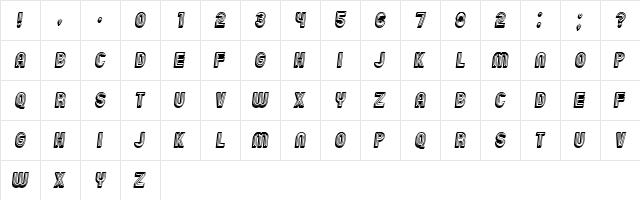
Chicago Bright Neon 3D Italic Font Preview
Chicago Bright Neon 3D Italic
Chicago Bright Neon 3D Italic Font Details
Design Context for Chicago Bright Neon 3D Typeface
Chicago Bright Neon 3D has a distinctly futuristic character, with geometric precision and clean angles that feel at home in technology, gaming, and sci-fi contexts. The dynamic lean of this cut emphasises speed and emphasis in any layout.